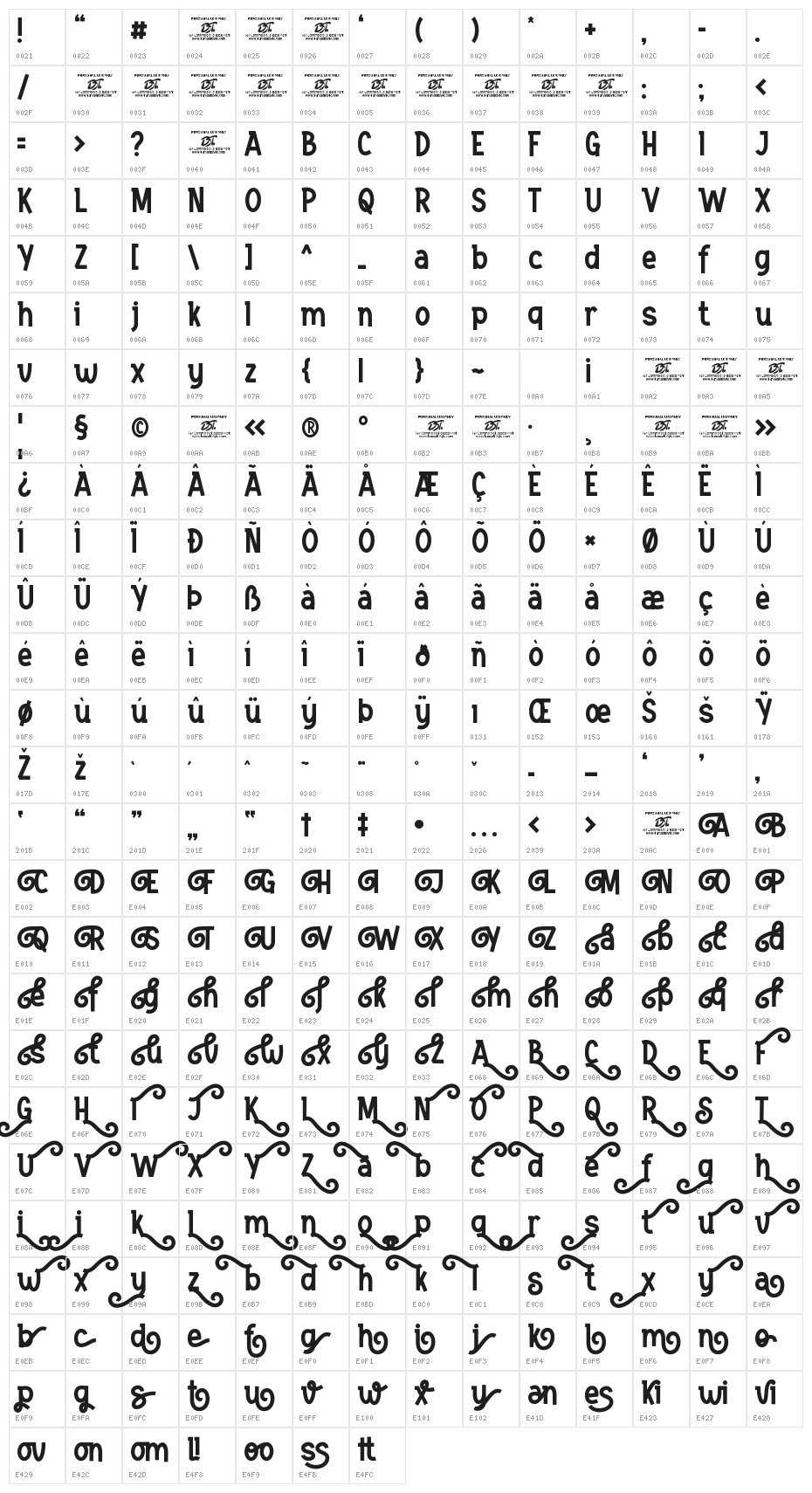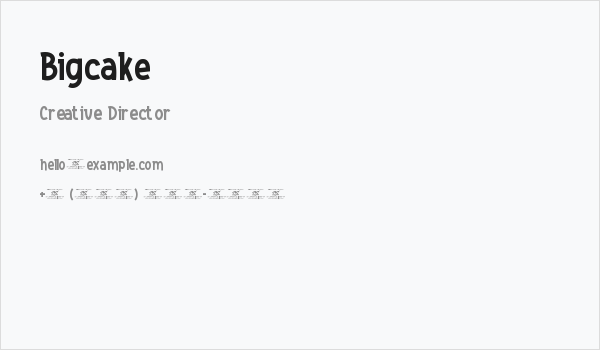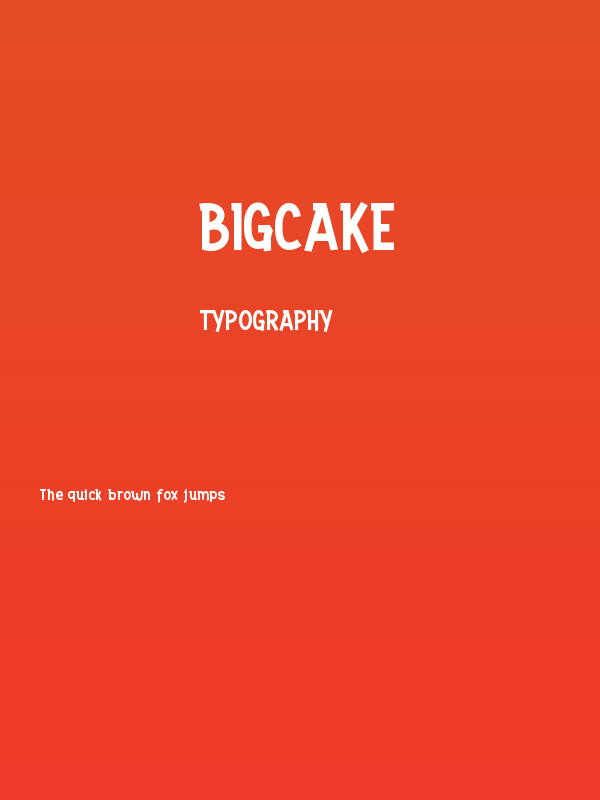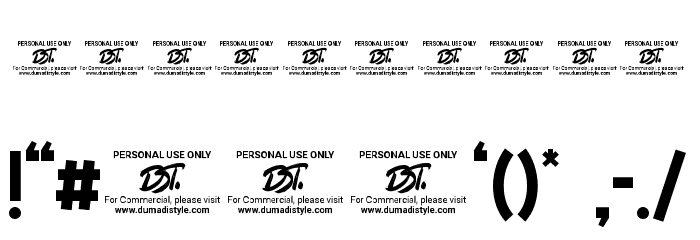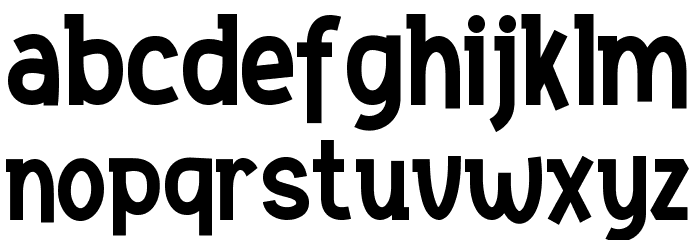
Bigcake Font
Bigcake Description
This font features bold, rounded characters with a playful and slightly retro aesthetic. The uppercase letters are tall and commanding, while the lowercase letters maintain a consistent height, contributing to a uniform appearance. The strokes are thick, providing a strong visual impact, and the overall design is clean with minimal contrast between thick and thin strokes. The special characters are designed to match the boldness and style of the alphabet, making them suitable for various creative applications.
| Overall Style | Playful, Retro |
| Proposed Projects | Ideal for posters, branding, children's books, and playful graphic designs. |